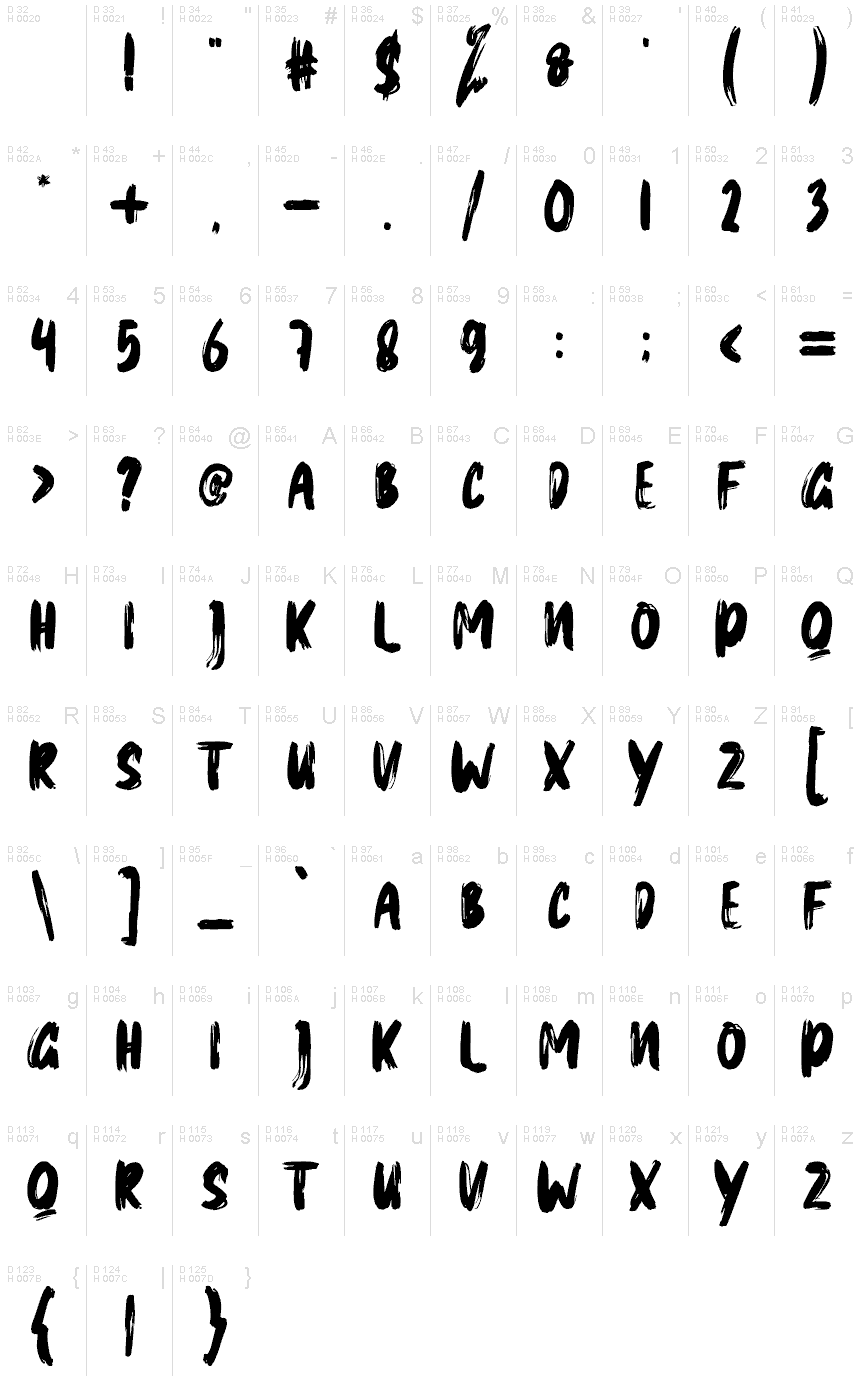
Bravena
Bravena font by Skiiller Studio is a bold, brush-script font with a carefree spirit and modern appeal. The condensed typeface has an urban influence and artistic graffiti style that will undoubtedly transform your designs. This creative font combines organic strokes with energetic motifs for friendly visuals that leave long-lasting impressions.
This free handwritten font provides a versatile typographic solution that will help transform your next branding and packaging design, advertisement, logo, book cover, clothes print, invitation card design as well as stationery print or poster! Just add some color to Bravena’s beautiful characters for great results!